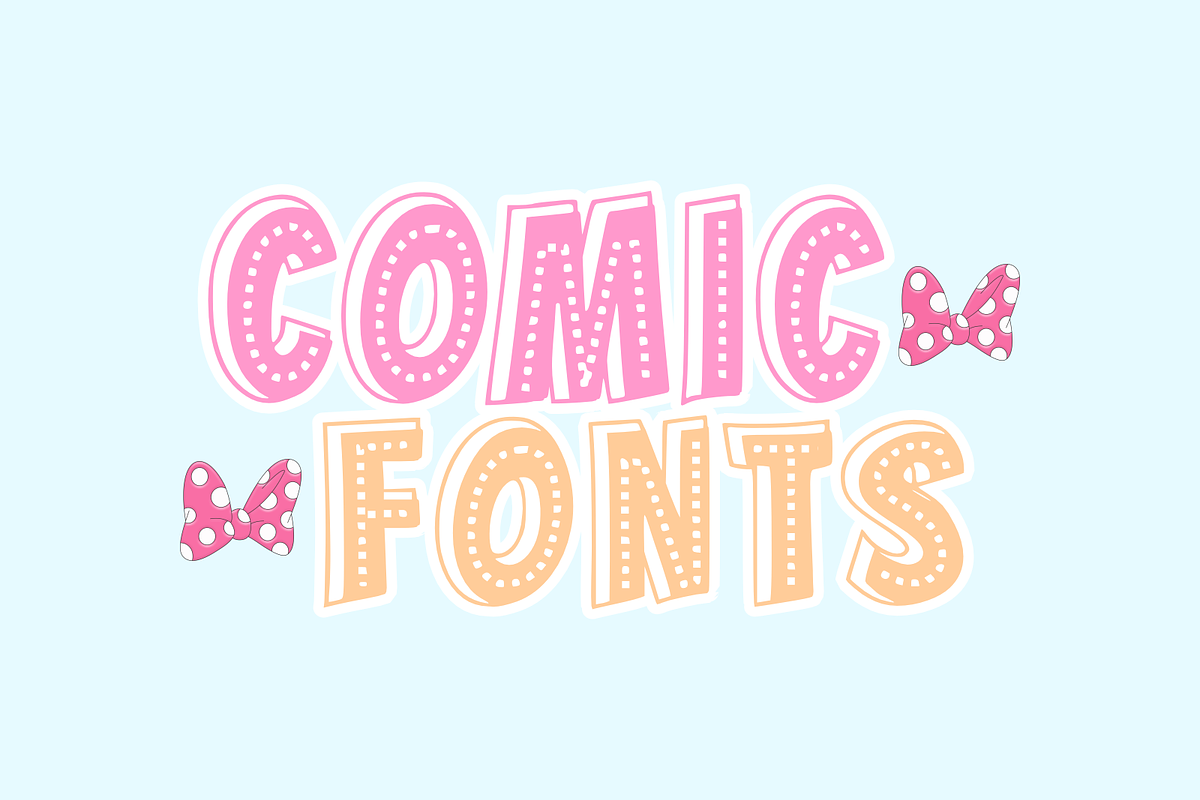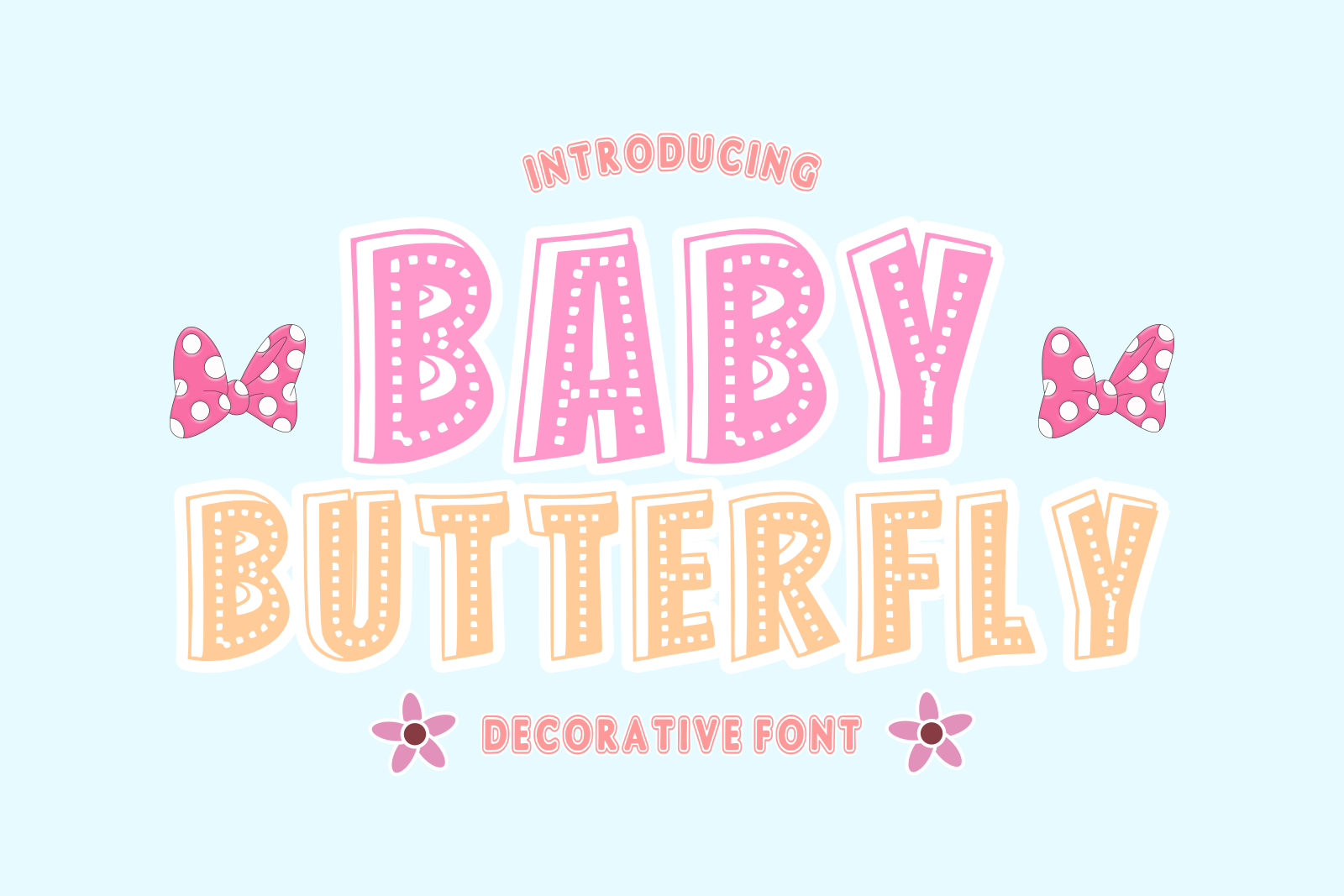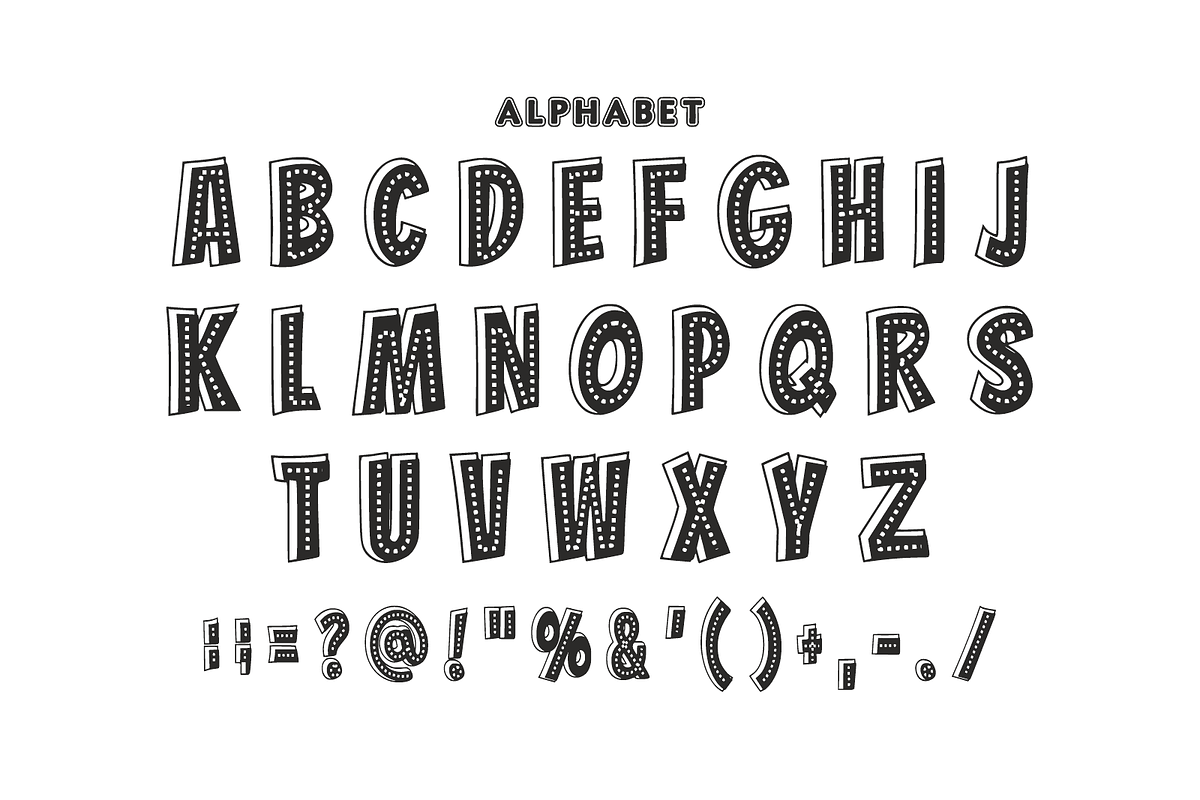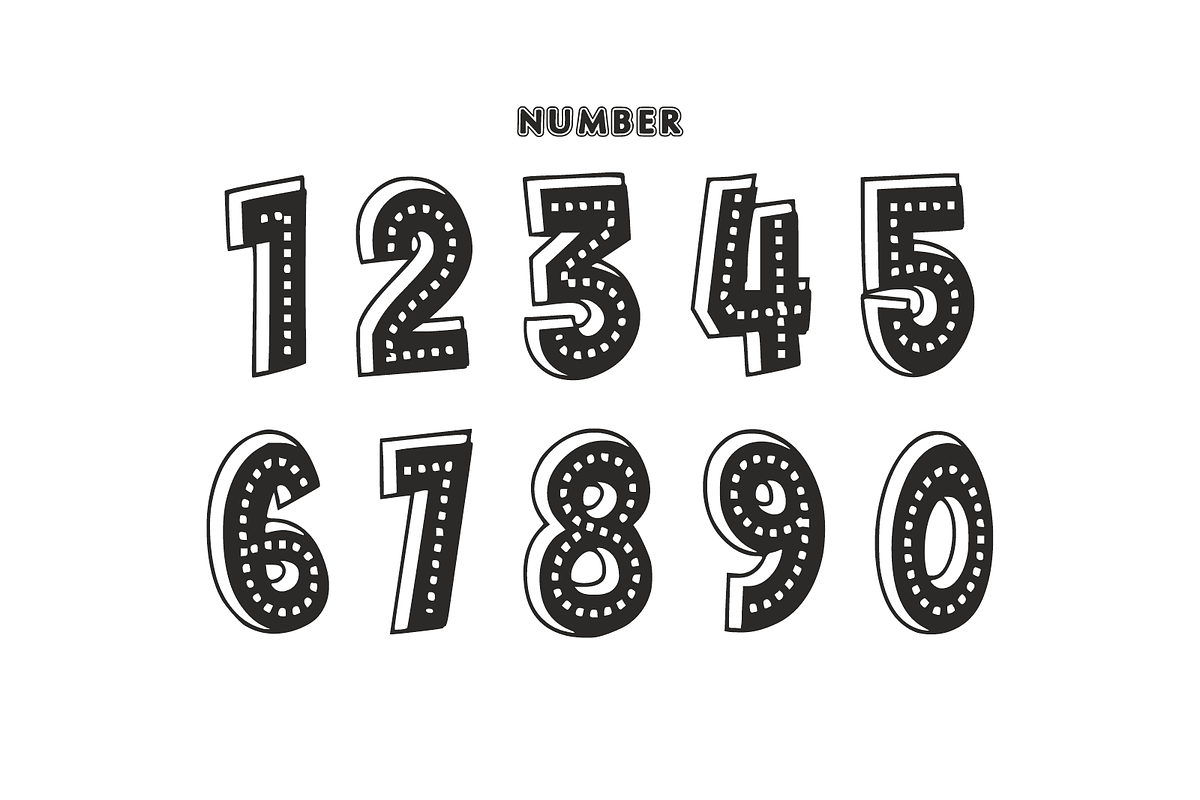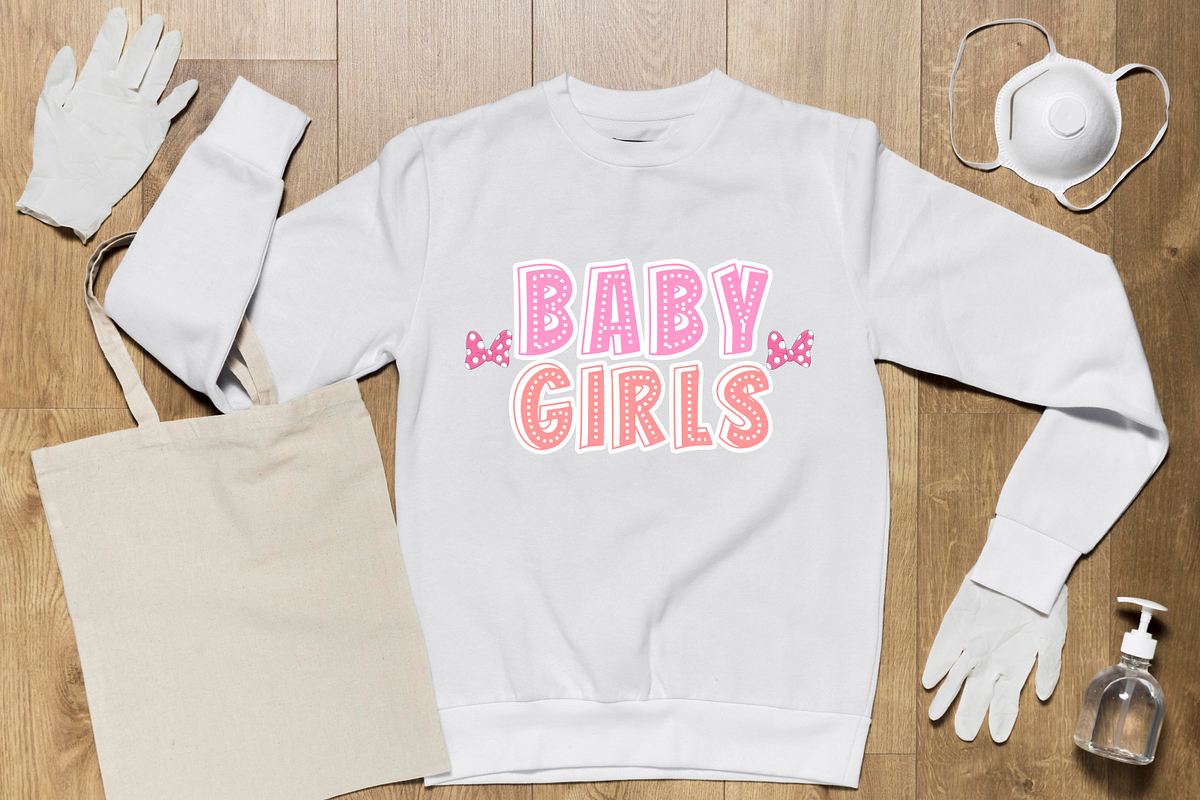
Baby Butterfly - Decorative Font
🦋 Baby Butterfly - Playful Decorative Font 🌸 Add a touch of whimsical charm to your designs with Baby Butterfly! This chunky, 3D-effect decorative font is designed to bring joy and a "bubbly" personality to every project. Featuring a unique dotted inner texture and a bold, hand-drawn feel, it’s the perfect choice for anything that needs to stand out with a sweet, youthful energy.
Whether you’re designing for a nursery, creating trendy Y2K-inspired stickers, or building a fun brand identity, Baby Butterfly delivers that perfect balance of "cute" and "cool."
✨ Why You’ll Love It: Unique 3D Style: Bold blocky letters with a playful dotted pattern.
Versatile Design: Perfect for headings, logos, and social media.
Complete Set: Includes Uppercase, Numbers, and Essential Punctuation.
Character Set: Uppercase Letters (A-Z), Numbers (0-9), and Simple Symbols/Punctuation.
🌟 Perfect For: Kids & Baby Branding (Nursery art, apparel, toys)
Sticker Design (GoodNotes, physical die-cuts)
Social Media Graphics (Instagram reels, TikTok captions)
Party Stationery (Birthday invites, greeting cards)
Y2K Aesthetic Projects (Retro-modern posters, merch)